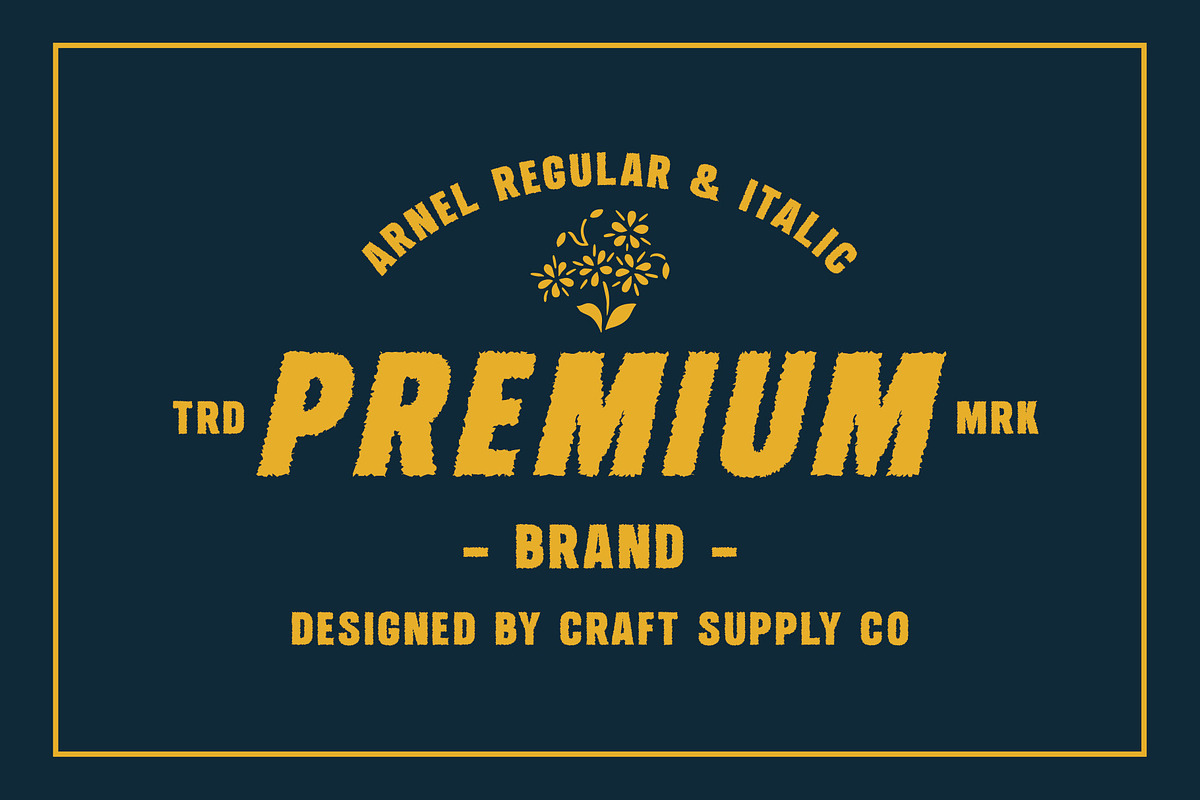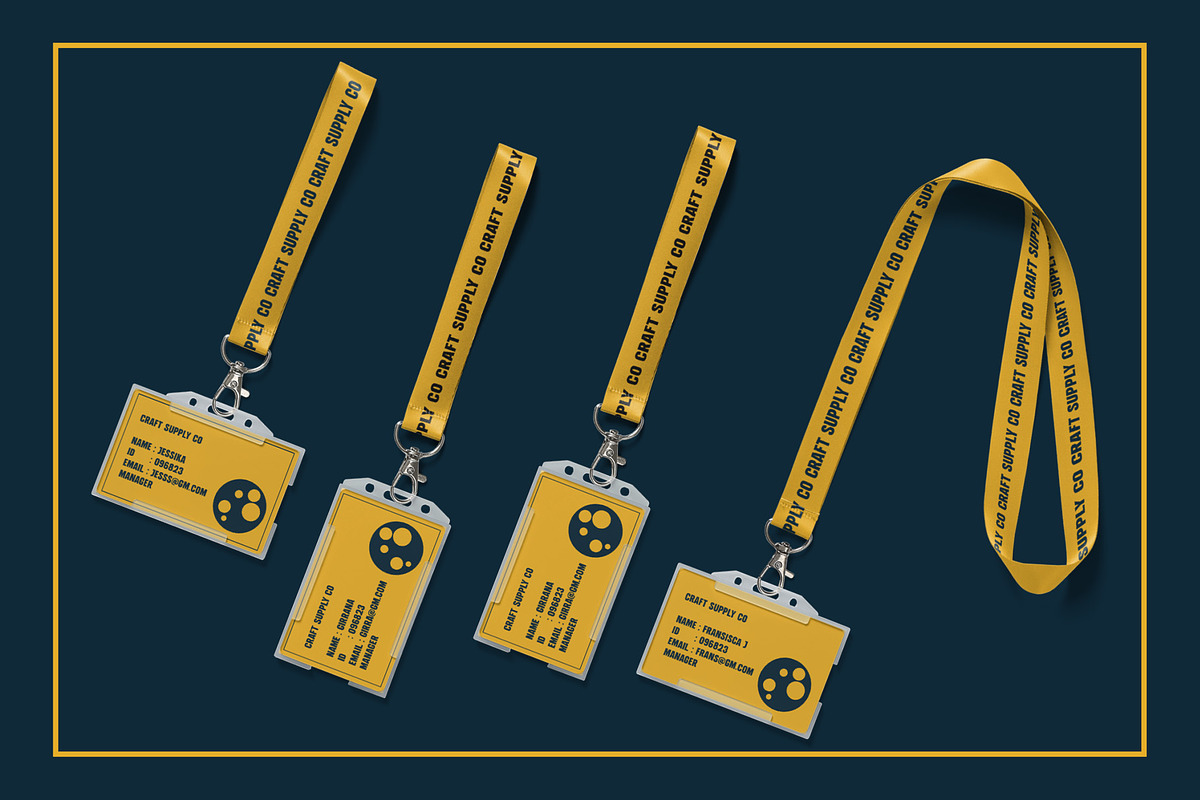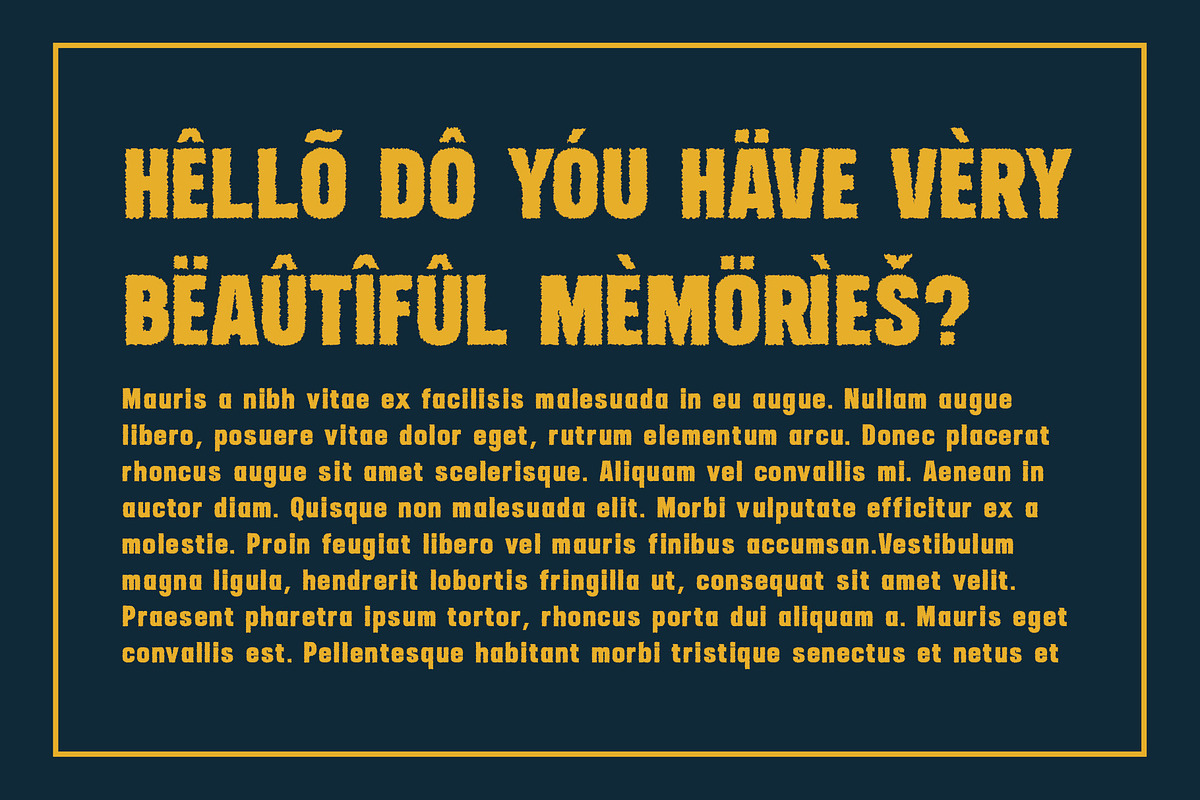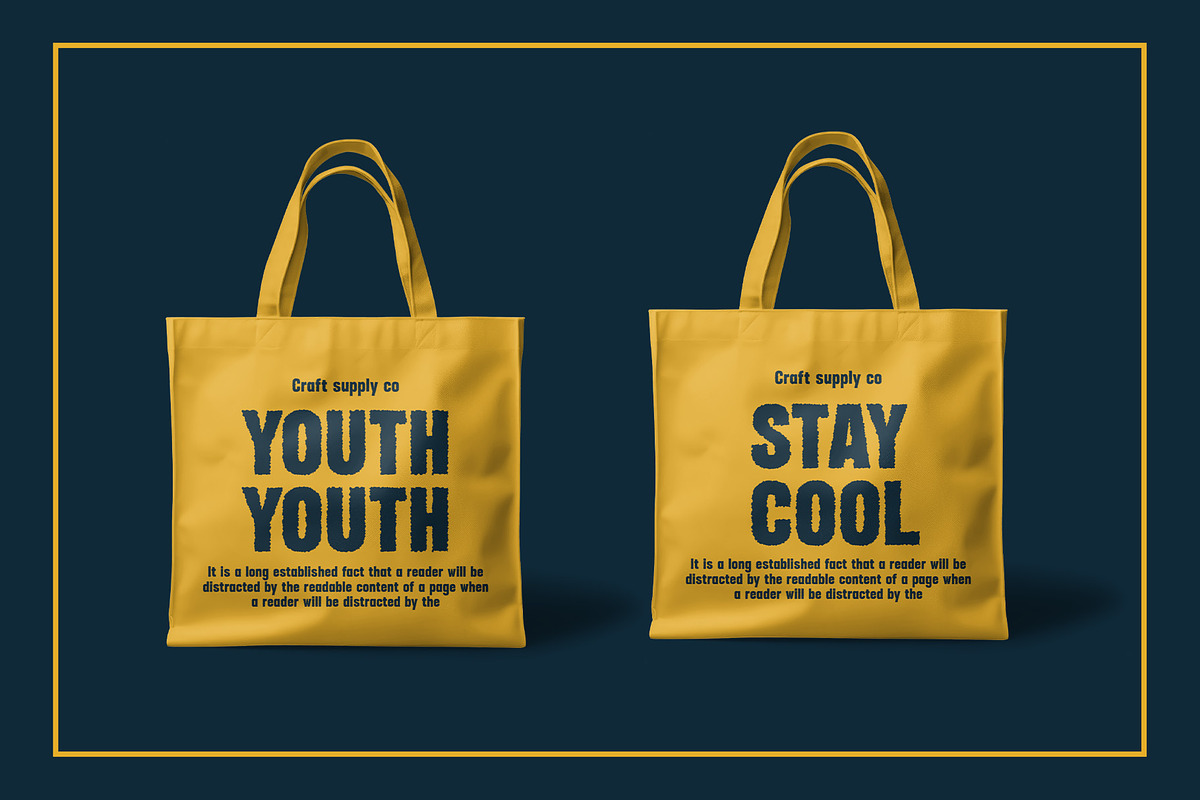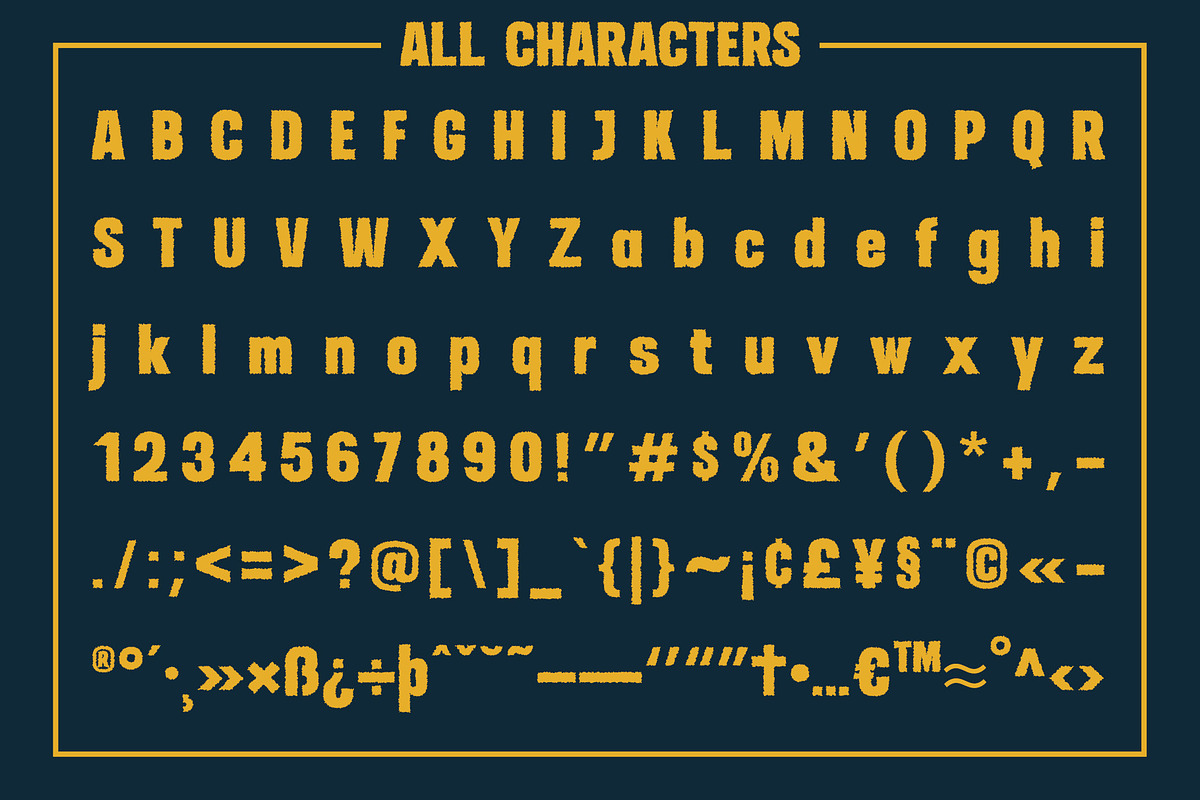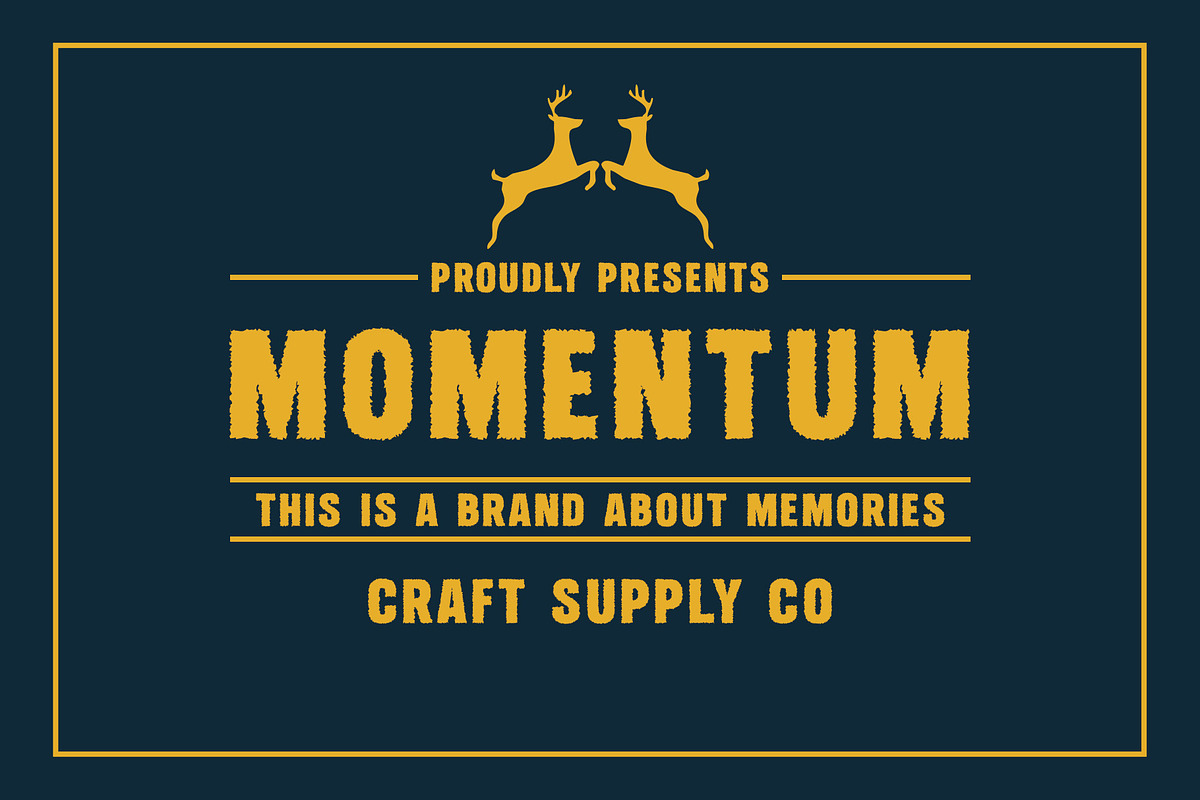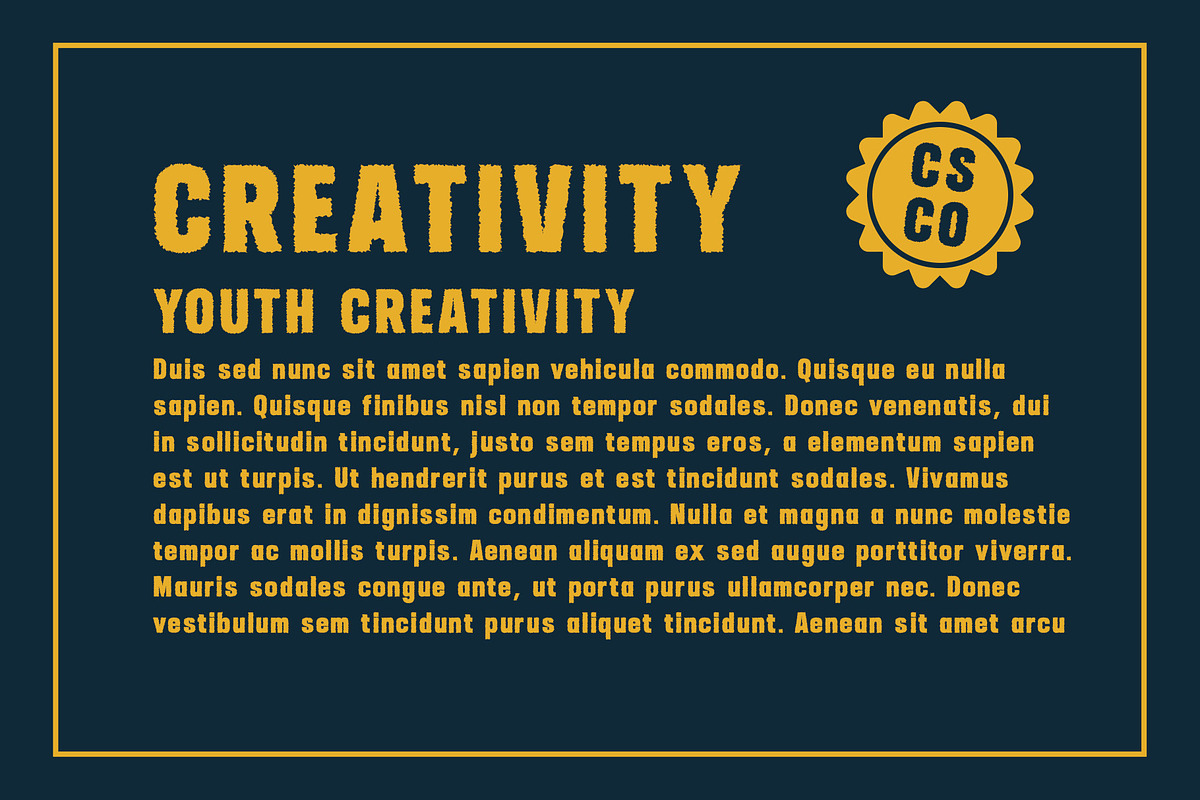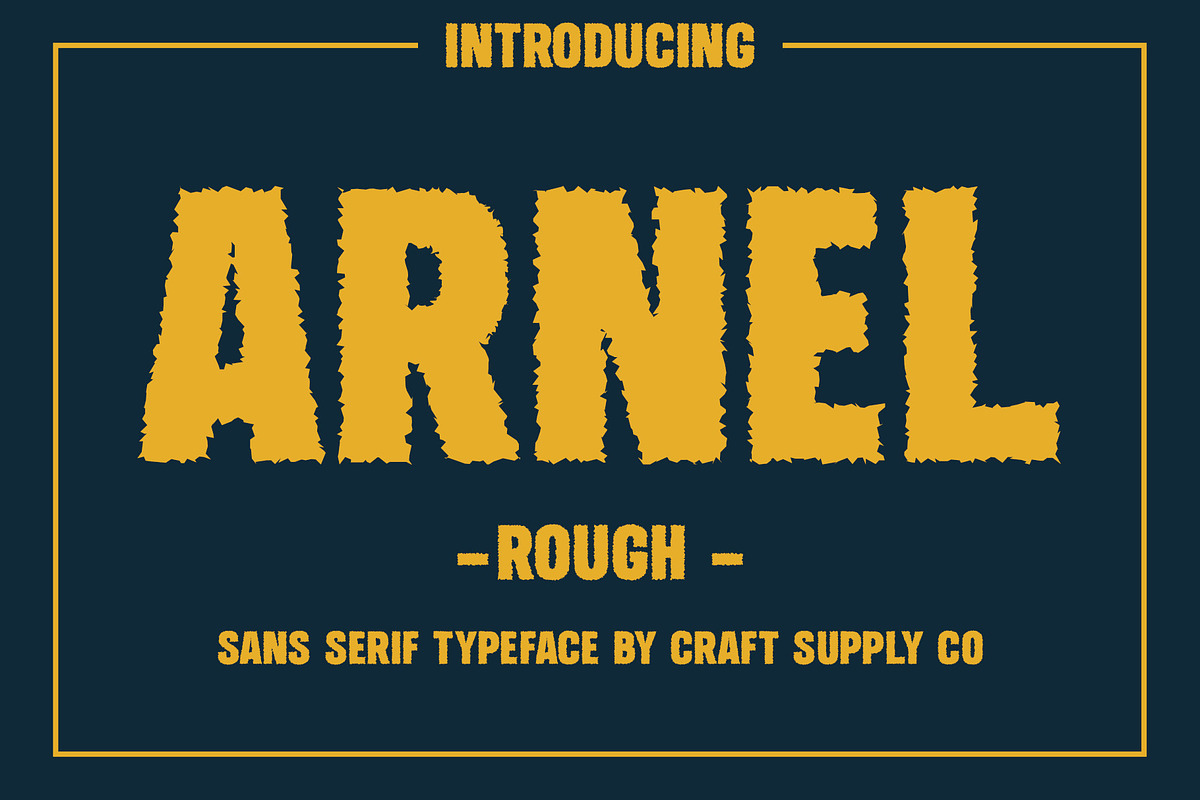
Arnel Rough
Arnel Rough: Vintage Boldness in Display Typography
Bold and Sans Serif Arnel Rough features a striking sans serif design, exuding boldness and confidence in every character. Its prominent presence commands attention, perfect for headlines and prominent text.
Rough Vintage Aesthetic With a distinct rough effect, This font channels a vintage vibe, reminiscent of old signage and retro posters. Each letter carries a weathered charm, adding character to any design project.
Ideal for Display Purposes Tailored for display applications, This font excels in grabbing the viewer’s attention. Whether on posters, banners, or digital interfaces, its bold and rugged appearance makes a statement.
Versatile Usage Despite its vintage-inspired aesthetic, This font offers versatility in application. From branding projects to editorial designs, it injects a dose of personality and authenticity into various contexts.
Bold Vintage Charm This font stands out as a bold and rugged choice in display typography. Its sans serif design and rough texture evoke a vintage aesthetic, making it ideal for projects seeking to convey nostalgia and authenticity. Dive into the world of This font and infuse your designs with timeless character and boldness.